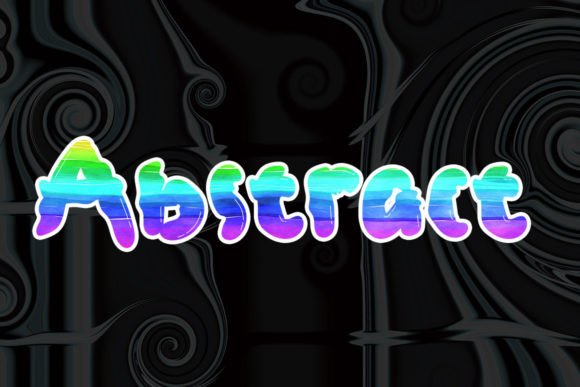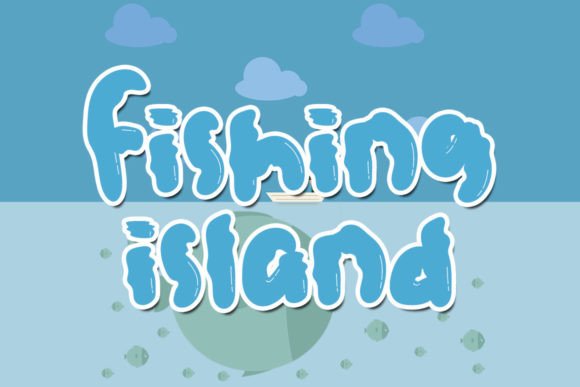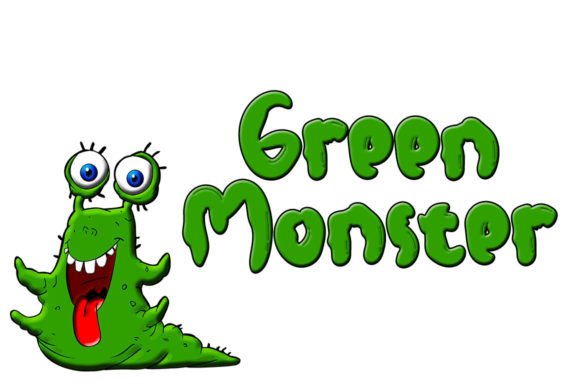
Introduction to Coolbath Font
Coolbath is a beautiful and sweet display font.
It is fresh, clean, and bold This font will look amazing in a great number of projects, both formal and informal.